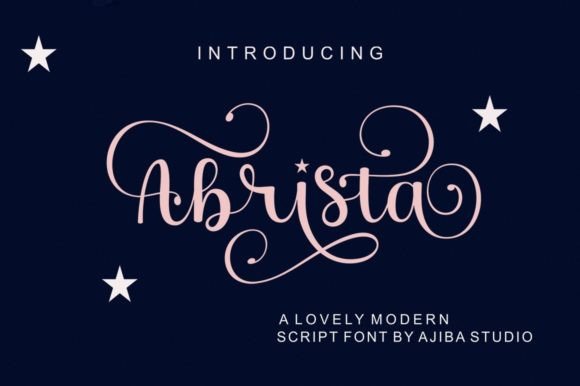
Abrista Font: Elevate Your Designs with Elegance and Magic
In the world of design, fonts play a crucial role in conveying the tone and aesthetic of a project. Whether you’re a professional designer or a crafty DIY enthusiast, finding the right font can make all the difference. If you’re looking for a font that adds a touch of elegance and magic to your designs, look no further than Abrista Font. In this article, we’ll dive into the world of Abrista Font and explore its features, benefits, and uses.
What is Abrista Font?
Abrista Font is a beautiful, handmade script font that is carefully crafted to bring a touch of sophistication and whimsy to your designs. With its flowing lines and intricate details, Abrista Font is perfect for a wide range of projects, from Instagram posts and social media graphics to DIY crafts and professional designs.
Key Features of Abrista Font
- Handwritten with love: Abrista Font is a genuine handwritten font, giving it a personal and unique touch that sets it apart from more traditional fonts.
- Elegant and magical: With its intricate details and flowing lines, Abrista Font adds a touch of elegance and magic to any design.
- PUA encoded: Abrista Font is PUA (Private Use Area) encoded, which means you can easily access all the amazing glyphs and ligatures with ease.
- Multilingual support: Abrista Font supports multiple languages, making it a versatile choice for designers and crafters around the world.
Benefits of Using Abrista Font
So why choose Abrista Font for your next project? Here are just a few benefits of using this beautiful font:
- Adds elegance to your designs: Abrista Font is the perfect choice for designers who want to add a touch of sophistication and elegance to their work.
- Perfect for DIY projects: With its handmade feel and whimsical details, Abrista Font is ideal for DIY projects, such as crafting, scrapbooking, and more.
- Instagram and social media friendly: Abrista Font is optimized for use on social media platforms, making it perfect for creating eye-catching Instagram posts and graphics.
- Experiment with glyphs and ligatures: With its PUA encoding, Abrista Font offers a wide range of glyphs and ligatures to experiment with. Don’t be afraid to get creative and try new things!
Tips and Tricks for Working with Abrista Font
Here are a few tips and tricks to help you get the most out of Abrista Font:
- Pair with bold fonts: Abrista Font pairs beautifully with bold, sans-serif fonts. Try pairing it with a font like Arial Black or Helvetica Bold for a striking contrast.
- Use for headings and titles: Abrista Font is perfect for headings and titles, where its elegant and whimsical details can really shine.
- Experiment with colors: Abrista Font looks beautiful in a wide range of colors, from rich jewel tones to soft pastels. Don’t be afraid to experiment and find the perfect color for your design.